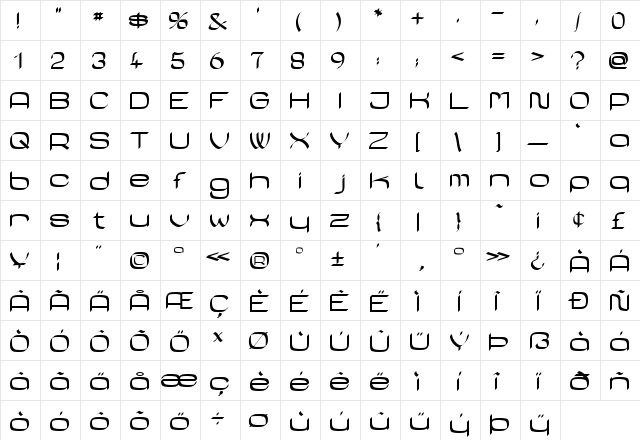
Casa Sans Regular
| Foundry | Peter Wiegel |
| Designer | Peter Wiegel |
Design Context for Casa Sans Typeface
Casa Sans takes a measured approach to typography — its balanced proportions and neutral character make it a reliable workhorse for both digital and print work.